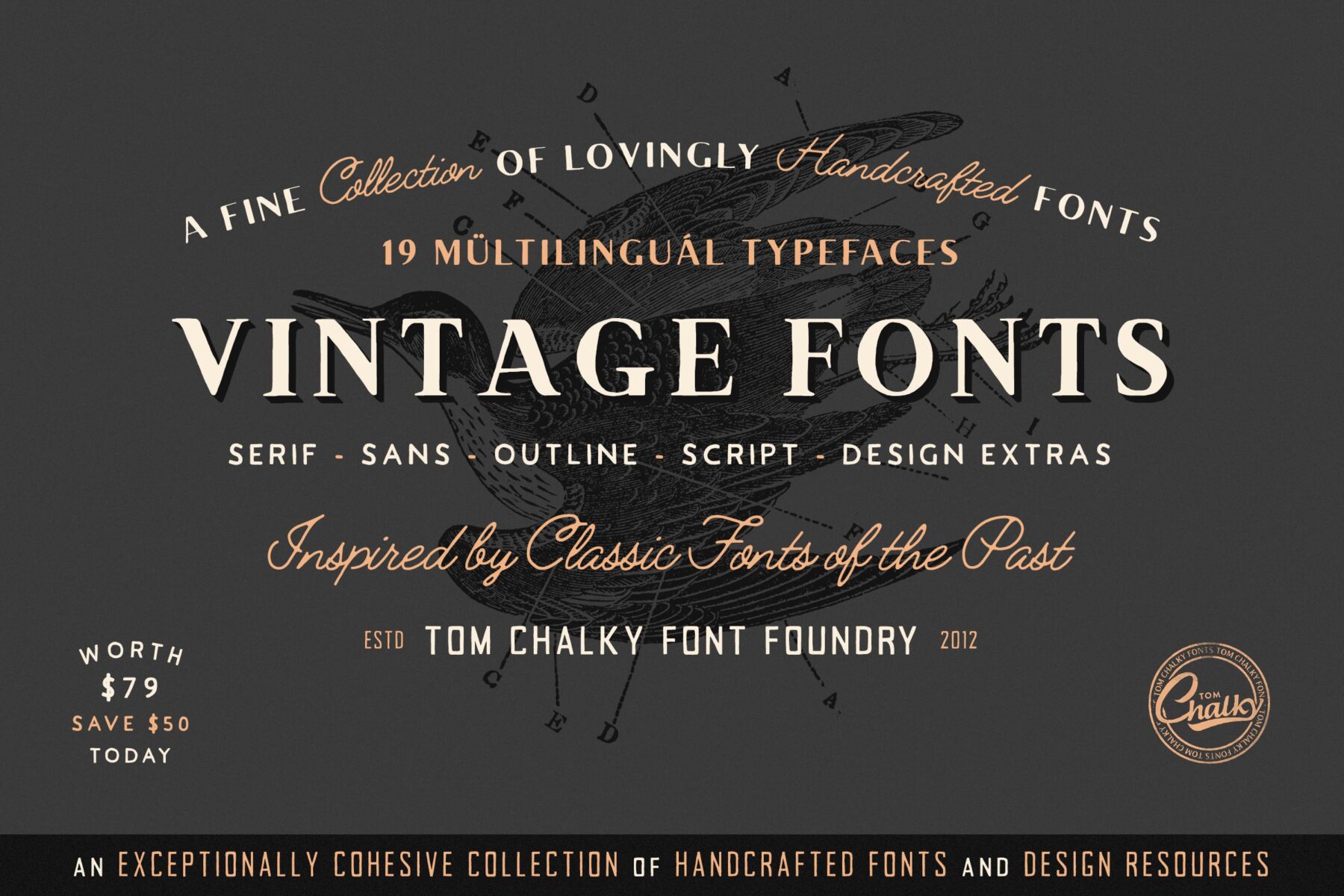
The Handcrafted Vintage Fonts Pack
Introducing the Handcrafted Vintage Fonts Pack—a curated collection of 19 complementary display fonts and 73 meticulously restored century-old illustrations. Sourced from rare books, these elements bring authentic vintage charm to your designs. As a bonus, the pack includes 32 hand-drawn badges and borders, perfect for enhancing your vintage-themed projects.
- 19 Handwritten Vintage-Inspired Fonts: Carefully selected to harmonize with each other, providing a versatile toolkit for your creative endeavors.
- 32 Badges & Borders: A flexible collection of hand-drawn elements to complement and elevate your vintage designs.
This pack is ideal for designers seeking to infuse their projects with a genuine vintage aesthetic, offering a cohesive set of tools to streamline your creative process.